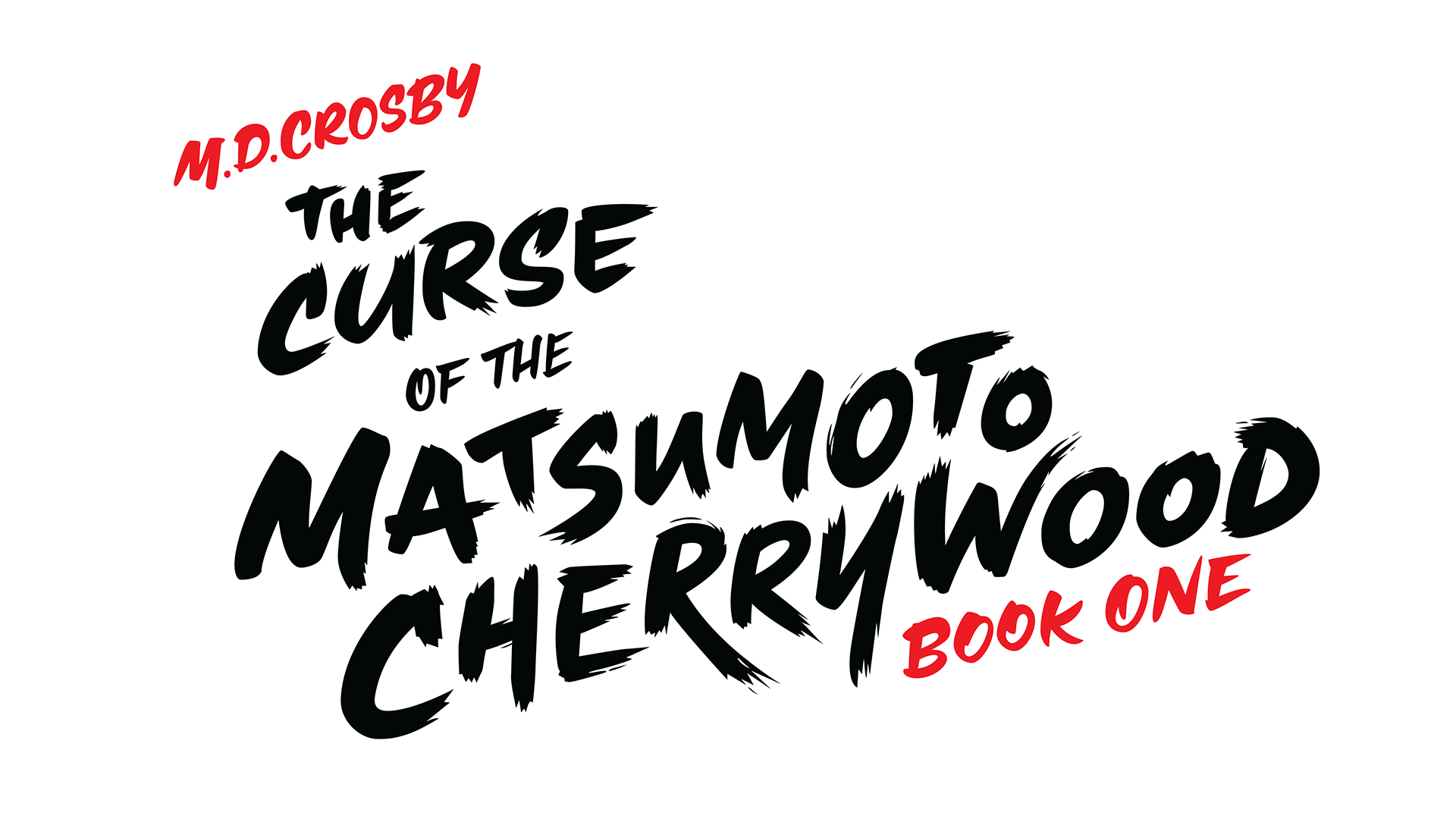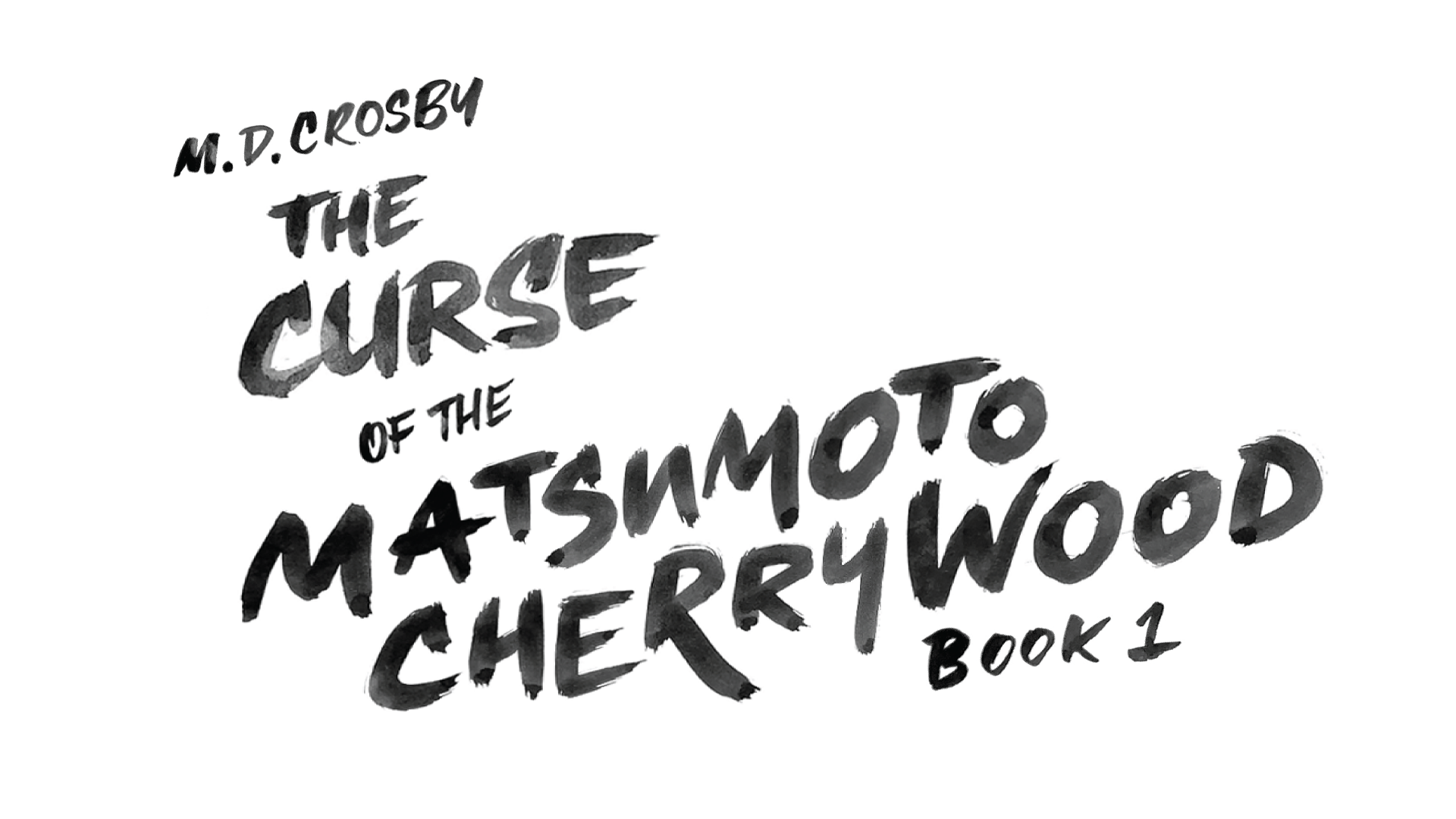
Book Cover Typography
Jack's dad, an equally talented author, requested a design that visually tied into the setting of the narrative, and integrated the headline of the book into the illustration. Jack and I collaborated the layout, style of the illustration and typography, and ultimately created this highly bespoke cover artwork.
Initial composite sketch
Typography redrawn from sketch & refined digitally
Final book cover design, with typography by me and illustration by Jack Crosby.